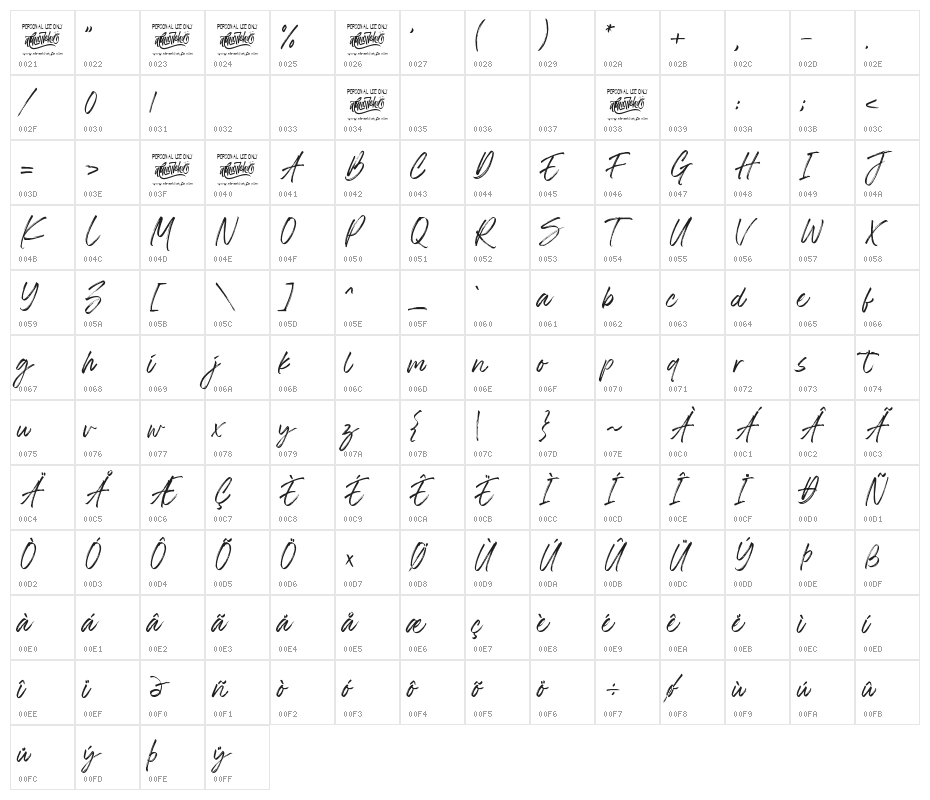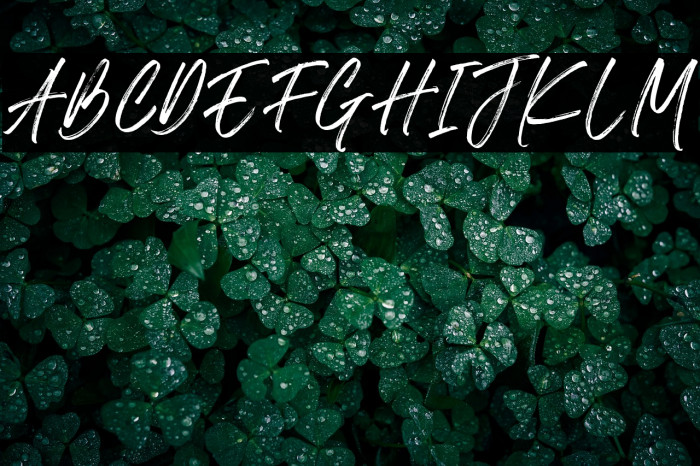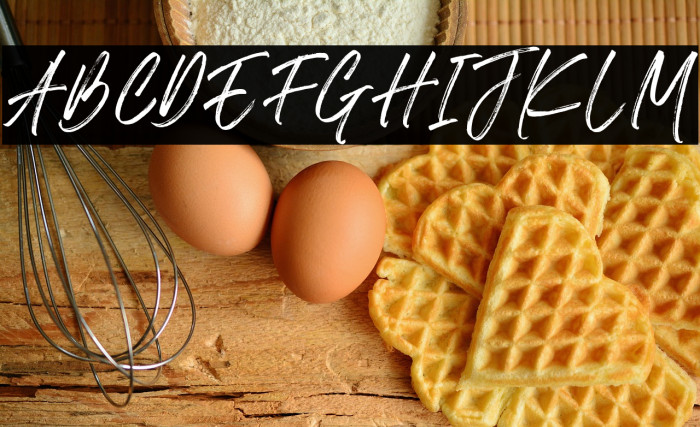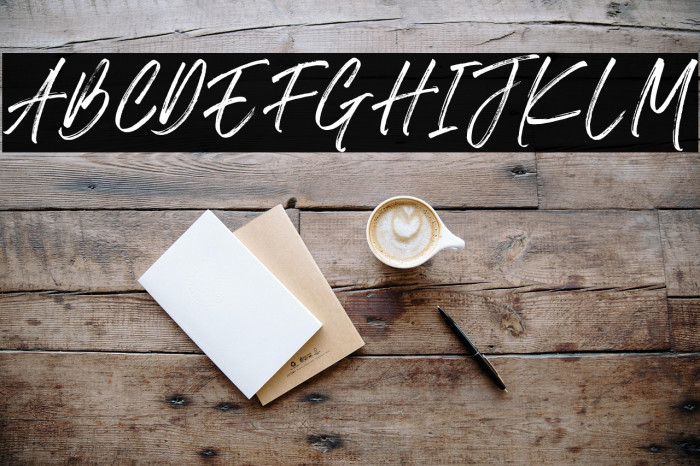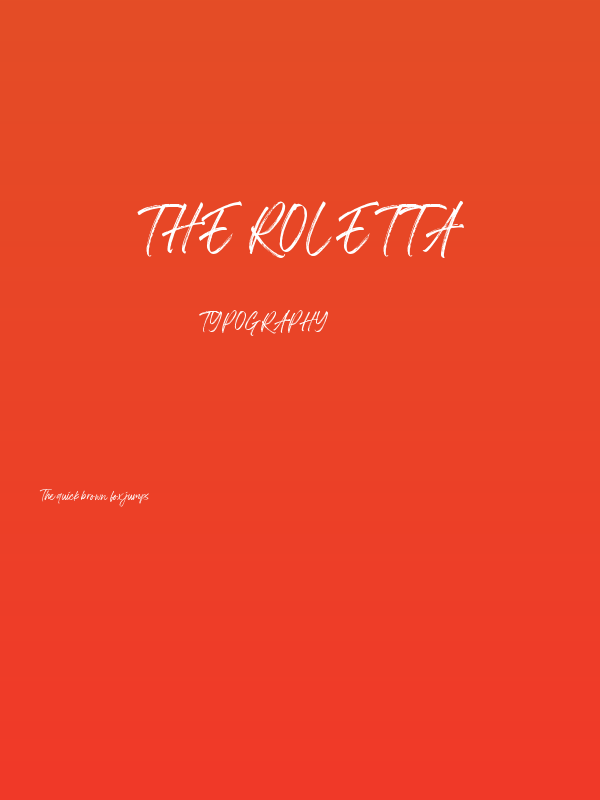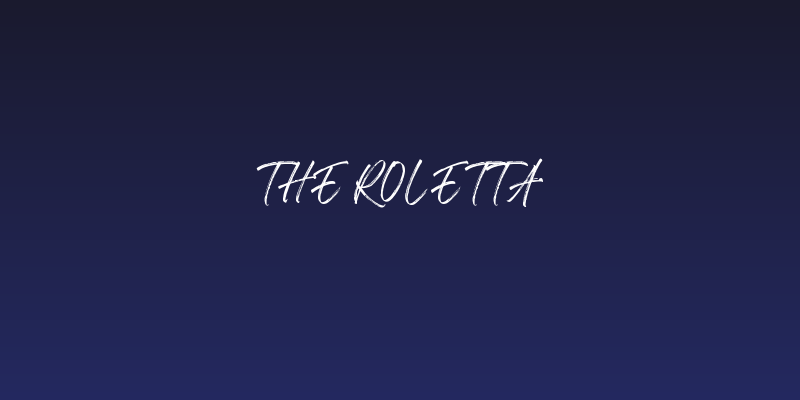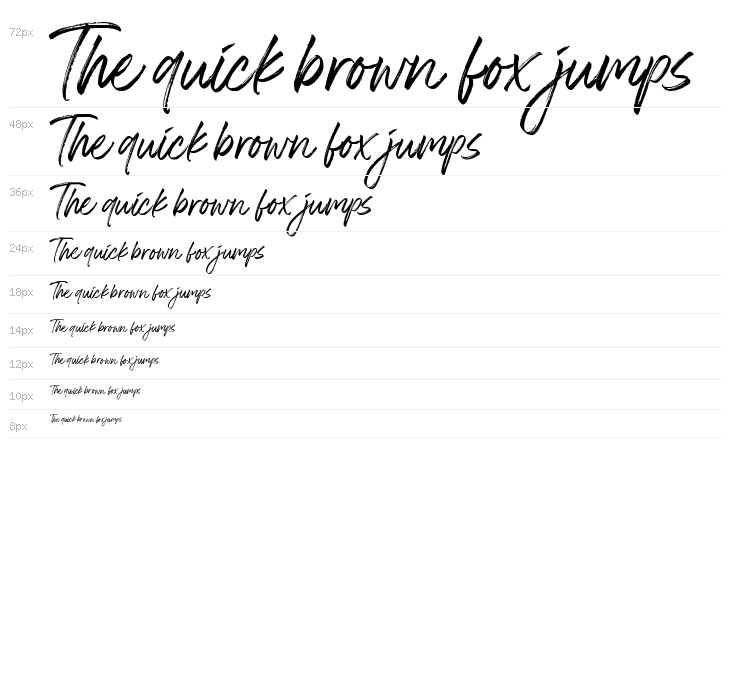
The Roletta Font
The Roletta Description
This font features an expressive and dynamic handwritten style, characterized by its fluid and natural strokes. The letters exhibit a casual elegance, with varying thickness that adds a sense of movement and personality. The uppercase letters are bold and confident, while the lowercase letters maintain a consistent flow, enhancing readability. The numerals and special characters complement the overall aesthetic, making it versatile for creative projects. Its artistic flair is suitable for designs that require a personal touch, such as invitations, greeting cards, or branding materials.
Use CaseLogos, Headlines, Personal projects
Proposed ProjectsIdeal for invitations, greeting cards, branding, and personal projects.